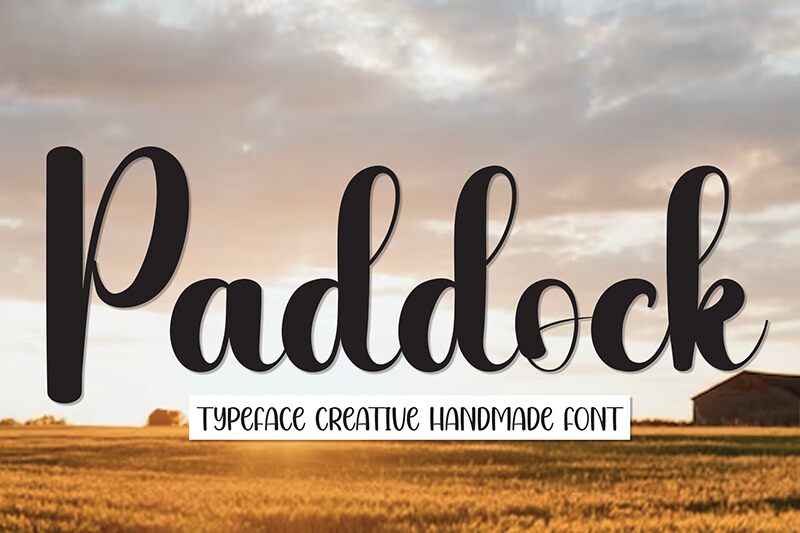
Paddock
Paddock font by Andi Moz is a brush style showing off elegant and flowing characters. Its sophisticated appearance is achieved with modern strokes that give off the right impression for a signature-style font. Paddock’s elegance and flowing nature make it an instrument of timelessness in the design of artwork.
Free to use, this font works perfectly for designing logos, business cards, branding projects, invitations, labels or stickers for wine bottles or high class products. Make it part of your website headers or body text to immediately give visitors a hint at how stylish you are.